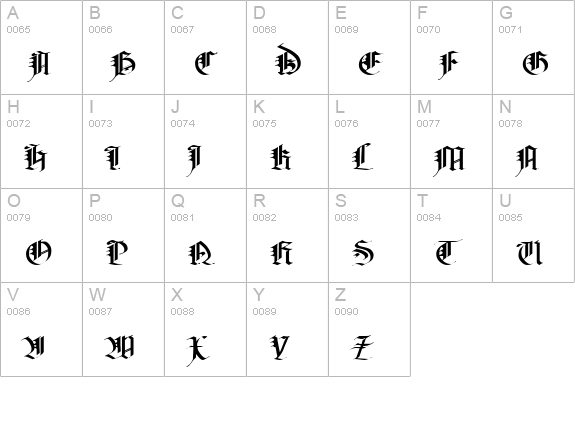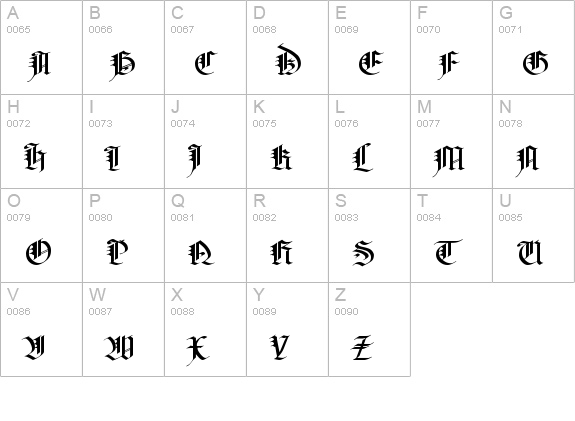
MA Gotic is a stunning and captivating font that exudes a sense of mystery and intrigue. This unique typeface is inspired by Gothic architecture and carries the essence of medieval times. With its bold and intricate letterforms, MA Gotic demands attention and adds a touch of elegance to any design project. What sets MA Gotic apart is not just its exceptional aesthetics, but also the fact that it is available free of charge. Yes, you read that right – this exceptional font is freely available to download at FontsMarket.com. Whether you are a professional designer, a student, or simply someone with a passion for typography, MA Gotic offers you the opportunity to enhance your creations without breaking the bank. The versatility of MA Gotic makes it suitable for a wide range of design applications. From logo designs and branding materials to posters, book covers, and websites, this font is a versatile tool that can elevate your projects to new heights. Its intricate details and carefully crafted curves create a sense of sophistication and add a touch of drama to any design. MA Gotic is a true gem in the world of typography. Its timeless appeal and distinct personality make it a standout choice for anyone seeking to make a lasting impression with their designs. And the best part? It comes to you for free, making it accessible to designers of all levels of expertise and budget. Don't miss out on the opportunity to enhance your design projects with the captivating allure of MA Gotic. Download this exquisite font today from FontsMarket.com and embark on a creative journey that will leave a lasting impact on your audience.